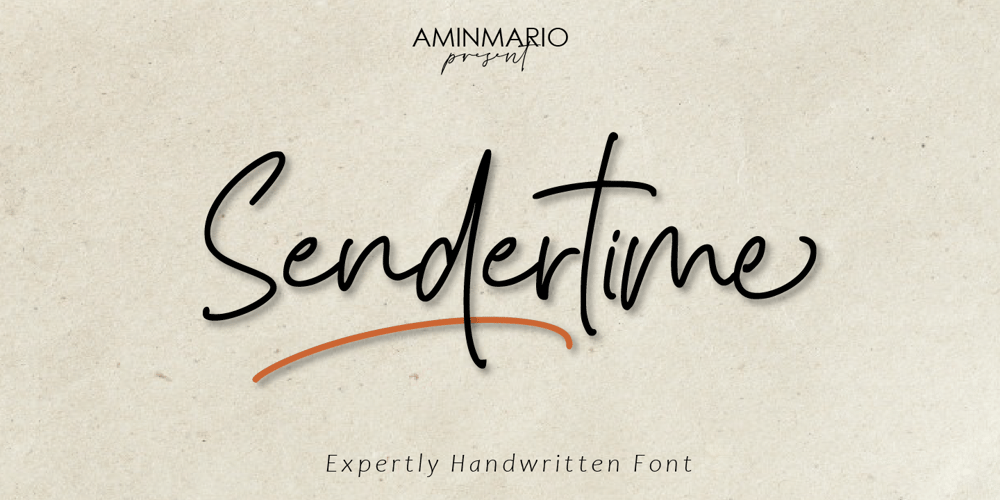
Sendertime Font Family was designed by Amin Maryono and published by Aminmario Studio. Sendertime contains 2 styles and family package options. Sendertime is a stylish and incredibly elegant handwritten font. It looks stunning on wedding invitations, thank you cards, quotes, greeting cards, logos, business cards and every other design which needs a handwritten touch. This font is PUA encoded which means you can access all of the glyphs and swashes with ease!